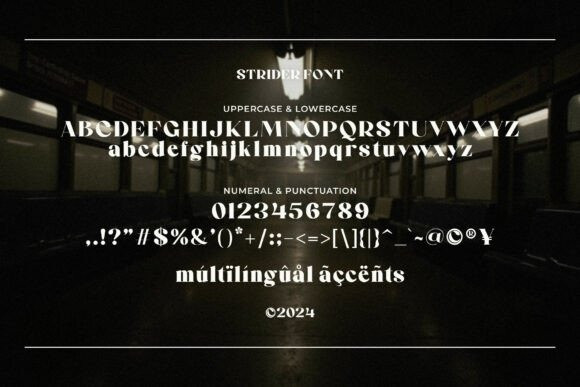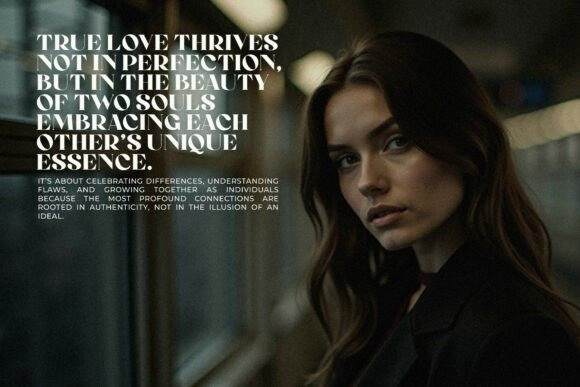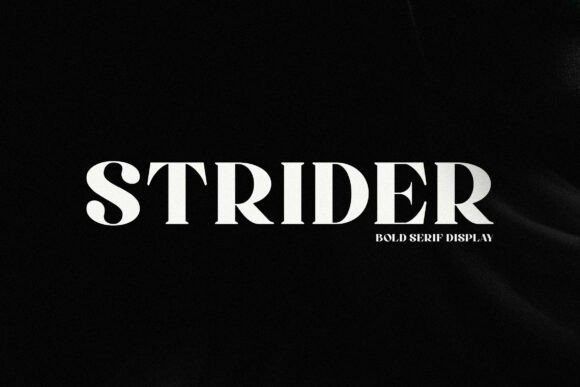
Strider Font
Strider Font is a bold serif typeface that commands attention with its strong, confident look. Perfect for headlines, logos and branding projects, Strider combines the classic elegance of a serif with a modern boldness, ideal for creating striking designs. The crisp details and balanced proportions ensure easy readability while projecting authority and sophistication.